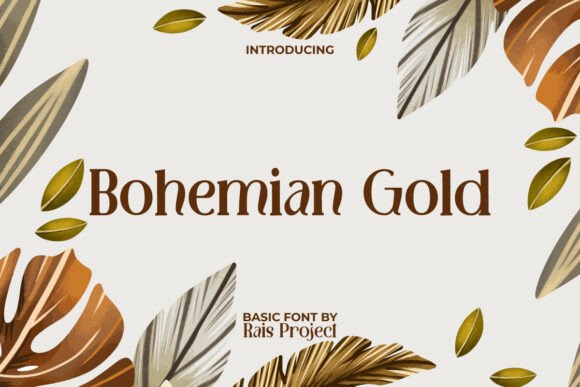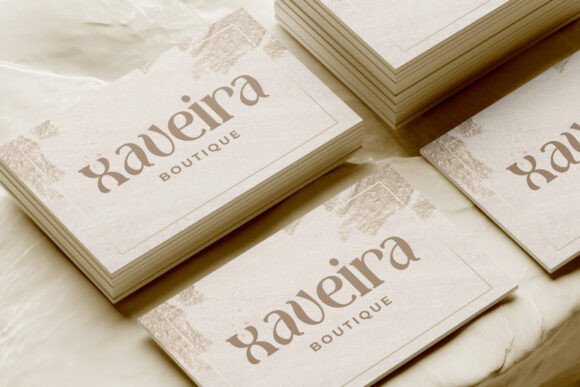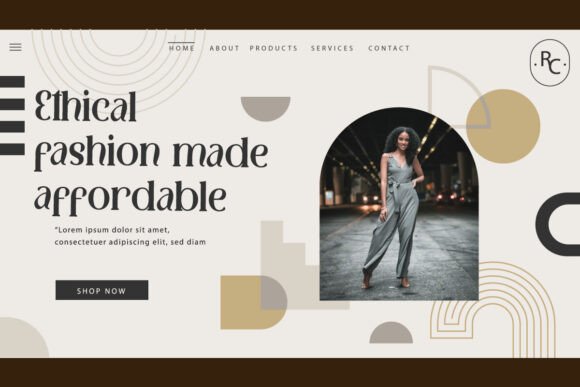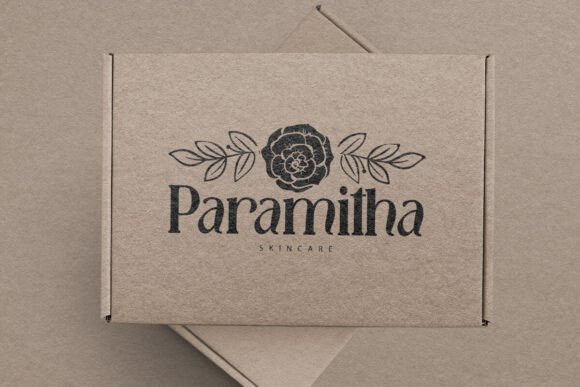
Bohemian Gold Font
About the Bohemian Gold Font
Meet Bohemian Gold Font, a stunning font that brings a touch of elegance and professionalism to any design. Bohemian Gold Font is a unique aesthetic and stunning display font with a little, curvy, beautiful style. This font has a unique line shape that flows like leaves blown by the wind. It will be good for any designs, such as advertisement, brand image, cover, custom design, flyer, invitation, label, menu, poster, product packaging, quote, signage, stationery, website page, and more!
Bohemian Gold’s flowing, organic forms make it ideal for headlines, logos, short text blocks on packaging, and posters requiring a touch of elegance and whimsy. It excels in situations where visual impact is paramount, adding a distinctive, handcrafted feel. However, its intricate details make it unsuitable for body text or UI elements where readability at smaller sizes is crucial.
The font’s personality is best described as elegant yet playful. Its inherent sophistication lends itself to luxury brands or projects with a bohemian aesthetic, but its gentle curves prevent it from feeling overly serious.
Pair it with a clean sans-serif like Montserrat for a modern contrast or a classic serif like Garamond for a more traditional feel. For a bolder statement, consider pairing it with a geometric sans-serif such as Futura. Avoid pairing it with other highly decorative fonts, as this could create visual clutter.
Bohemian Gold Font Usage Examples
Bohemian Gold Font Example